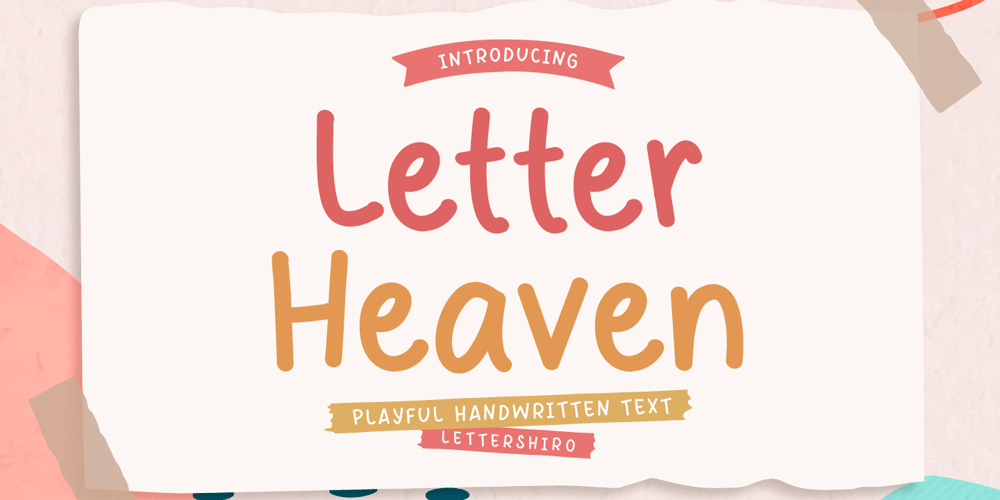
Letter Heaven Font Family was designed by Muhammad Sirojuddin and published by Lettersiro. Letter Heaven contains 1 styles and family package options. Introducing Letter Heaven a charming and playful handwritten font designed to bring a touch of whimsy to any project. Whether you’re crafting a social media post, designing a fun logo, or working on a book cover, Letter Heaven is your go-to choice for adding a cheerful and inviting vibe. This font is perfect for children’s designs, school projects, and any creative endeavor that needs a friendly and approachable feel. With its smooth curves and joyful appearance, Letter Heaven will make your text stand out and capture attention in the most delightful way.